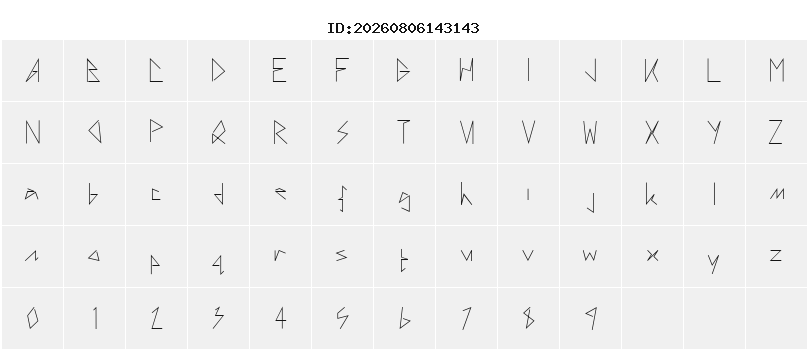
• Font Name: One
One.ttf is a modern, elegant sans-serif font designed for ultimate readability and visual harmony. Perfect for branding, headlines, web design, and print materials.